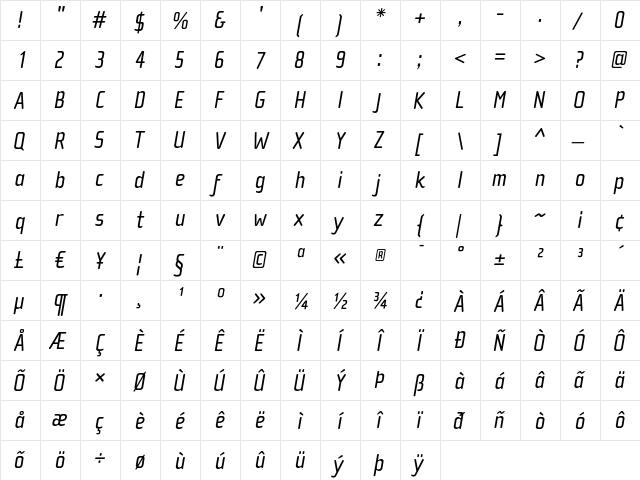
ChollaSans Italic
Design Context for ChollaSans Typeface
ChollaSans takes a measured approach to typography — its balanced proportions and neutral character make it a reliable workhorse for both digital and print work. The slanted form adds forward momentum and visual energy.
Pro Tip: Try ChollaSans for annotation and caption copy alongside an upright companion — the contrast in angle creates a dynamic but ordered typographic system.